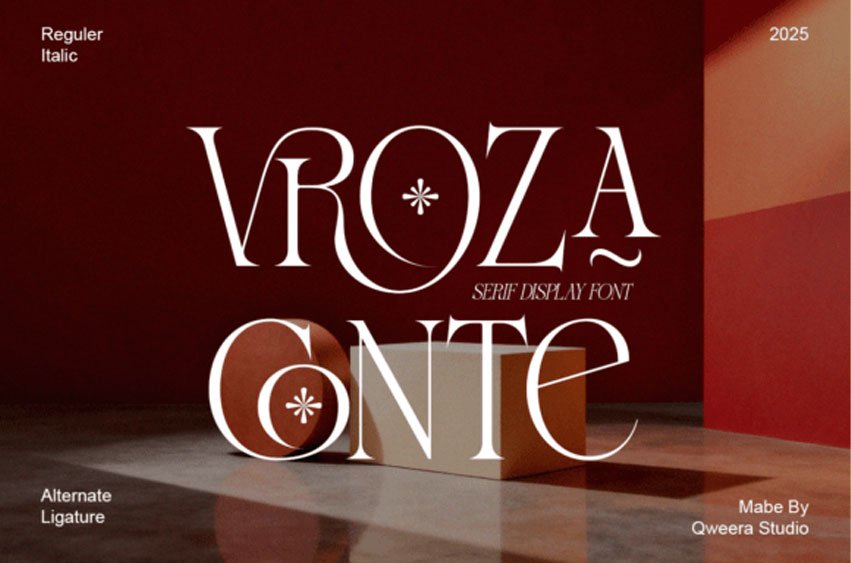
Vroza Conte Font
Vroza Conte Font is a modern elegant serif display typeface designed with refined details and artistic balance. Perfect for logos, magazines, packaging, and branding.
Its clean form and decorative accents create a sophisticated visual presence, making it ideal for premium design applications.
Designed for creatives who want a balance between clarity and expressive elegance.